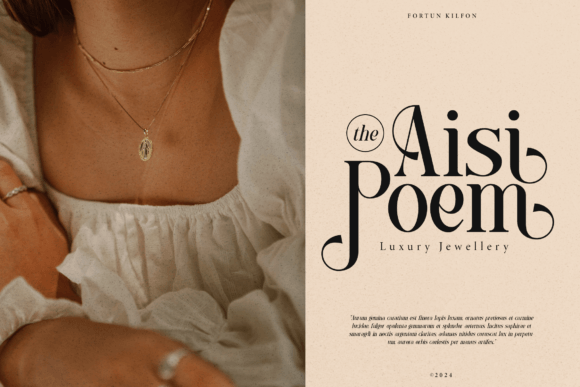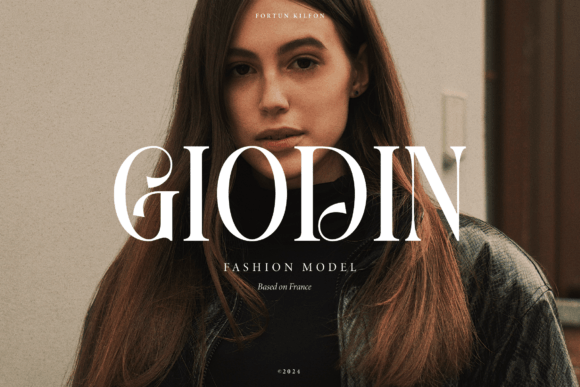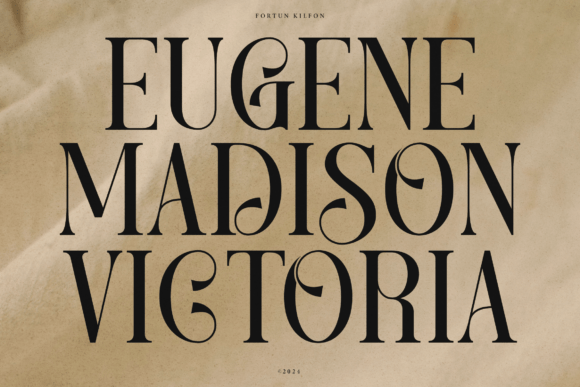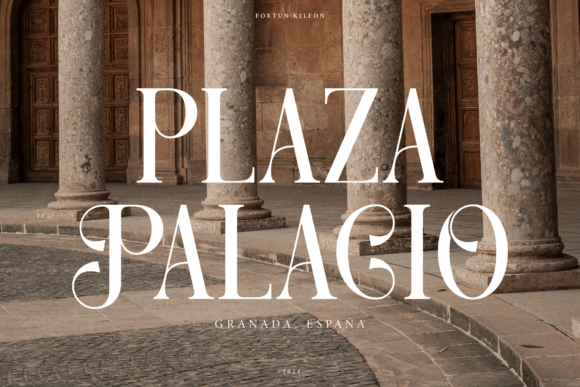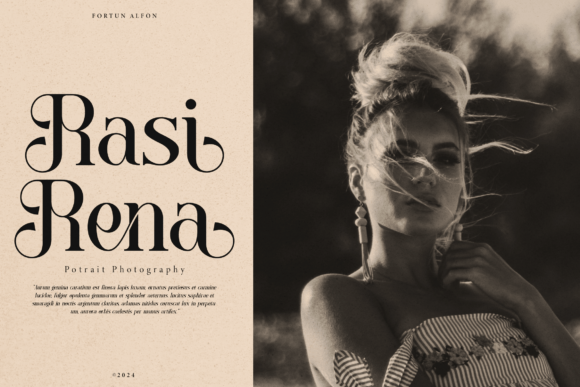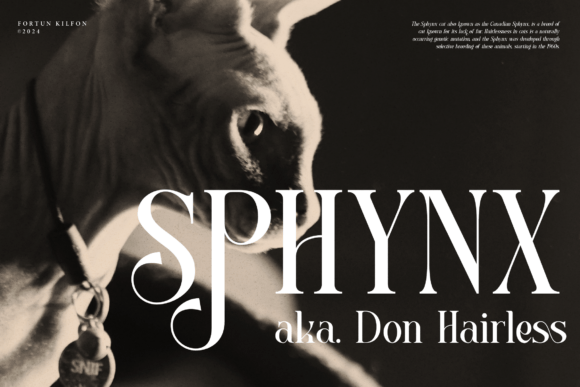
Introducing Fortun Kilfon: The Epitome of Elegance in Serif Fonts
In the realm of typography, the right font can elevate a design from mundane to extraordinary. For designers and crafters seeking to infuse their projects with a touch of sophistication, Fortun Kilfon emerges as a stellar choice. This modern and elegant serif font is characterized by its clean lines and smooth curves, striking a perfect balance between style and readability.
The Essence of Fortun Kilfon
Fortun Kilfon is not just another serif font; it’s a design statement. Its refined look is tailored for classy designs, making it an ideal selection for logos, magazines, invitations, and any project that demands a high level of elegance. The font’s stylish yet readable nature ensures that your message is conveyed with clarity and poise, engaging your audience effectively.
Key Features of Fortun Kilfon
- Modern and Elegant Design: Fortun Kilfon boasts a contemporary aesthetic that lends a sophisticated air to any project. Its design is carefully crafted to ensure that it stands out in a crowd, yet remains approachable and easy to read.
- Clean Lines and Smooth Curves: The font’s architecture is defined by its clean lines and smooth curves, which contribute to its readability and aesthetic appeal. This balance of elements makes Fortun Kilfon versatile and highly usable across various design applications.
- High Versatility: Whether you’re working on a logo, magazine, invitation, or any other design project, Fortun Kilfon proves to be a highly versatile tool. Its elegance and readability make it suitable for a wide range of design needs.
- Sophistication and Readability: One of the standout qualities of Fortun Kilfon is its ability to add a touch of sophistication to any project without compromising on readability. This makes it an excellent choice for designers who aim to create visually appealing and effective designs.
Applications of Fortun Kilfon
Given its elegant and readable design, Fortun Kilfon finds applications in various areas of design:
- Logos: For businesses looking to establish a sophisticated brand identity, Fortun Kilfon can be a valuable asset. Its unique yet professional look can help a brand stand out.
- Magazines and Editorials: The font’s readability and aesthetic appeal make it suitable for magazine and editorial design, enhancing the reader’s experience.
- Invitations and Events: For event planners and designers creating invitations, Fortun Kilfon offers a classy and refined look that can set the tone for the event.
- Packaging and Advertising: Its modern elegance also makes it a good fit for packaging and advertising materials where standing out is crucial.
Why Choose Fortun Kilfon?
In a market flooded with font options, Fortun Kilfon distinguishes itself through its unique blend of modernity, elegance, and readability. Designers and crafters looking for a font that can bring a level of sophistication and professionalism to their projects will find Fortun Kilfon to be an excellent choice. Its versatility across various design applications and its ability to engage audiences make it a valuable tool in any designer’s toolkit.
Fortun Kilfon is more than just a serif font; it’s a design solution for those seeking elegance, readability, and sophistication. Its modern aesthetic, combined with its versatility and effectiveness, makes it an ideal selection for a wide range of design projects. Whether you’re a designer aiming to elevate your brand’s visual identity or a crafter looking for the perfect typography for your project, Fortun Kilfon is poised to exceed your expectations.
Embrace the elegance and sophistication that Fortun Kilfon has to offer, and witness how this modern serif font can transform your designs into timeless pieces of art.